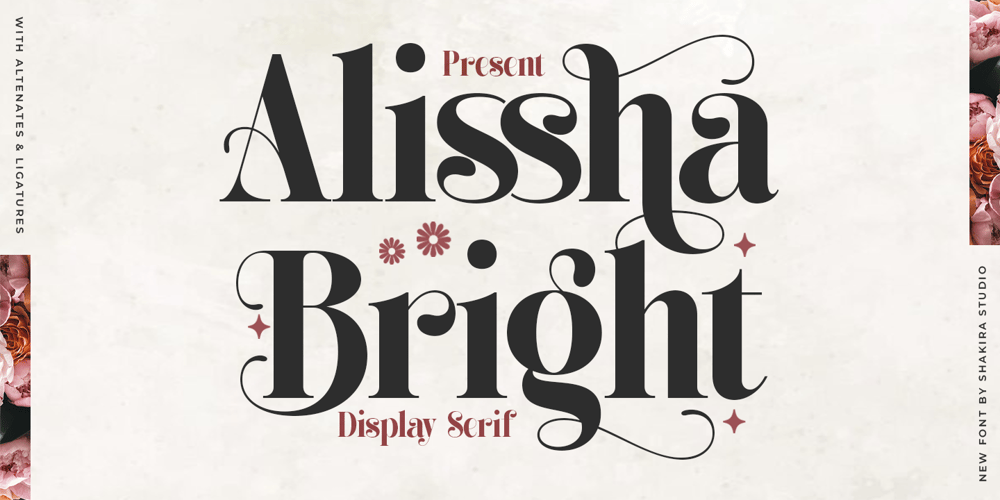
Alissha Bright Font Family was designed by Idhham Cholid Rikzano Yahya and published by Shakira Studio. Alissha Bright contains 2 styles and family package options. Alisha Bright is a modern display serif font available in both regular and italic styles. With luxurious and elegant characters, this typeface features stylish alternates and ligatures that make it perfect for any creative design. Ideal for branding, invitations, editorial projects, logos, and more, Alisha Bright adds a refined and timeless touch to your work.Here’s what you get: Regular & Italic All Multilingual symbol Opentype features ( ligature, alternate ) Accessible in the Adobe Illustrator, Adobe Photoshop, Adobe InDesign, even work on Microsoft Word. PUA Encoded Characters – Fully accessible without additional design software. Multilingual character supports : (Afrikaans, Albanian, Catalan, Croatian, Czech, Danish, Dutch, English, Estonian, Finnish, French, German, Hungarian, Icelandic, Italian, Lithuanian, Maltese, Norwegian, Polish, Portuguese, Slovenian, Spanish, Swedish, Turkish, Zulu)Follow my shop for upcoming updates, and for more of my work, If you need a custom license or have questions please visit our website: www.shakirastudio.comThank you!Shakira Studio